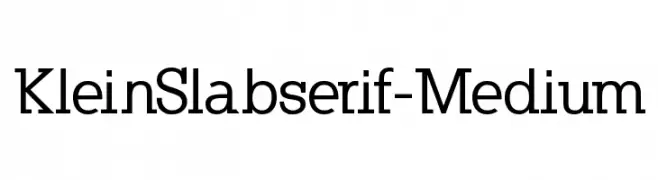
A modern, bold, extra condensed sans-serif font with clear, uniform strokes.
Noto Sans SemiCondensed Font
A modern, semi-condensed sans-serif font with excellent readability.
Sansus Webissimo Italic Font
Font by filsonkiol
A modern, italicized sans-serif font with a sleek and dynamic style.
Noto Sans Condensed Bold Font
A modern, bold, and condensed sans-serif typeface with excellent readability.
A Hundred Miles Font